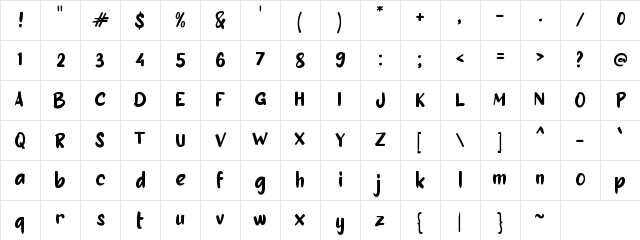
b Beshary Regular Free Font
b Beshary Regular
Designer: Wahyu Eka Prasetya
Design Context for b Beshary
b Beshary is a composed and adaptable typeface that performs quietly and consistently across a wide range of design contexts.